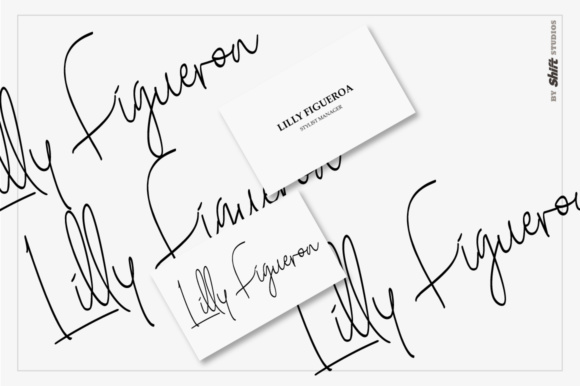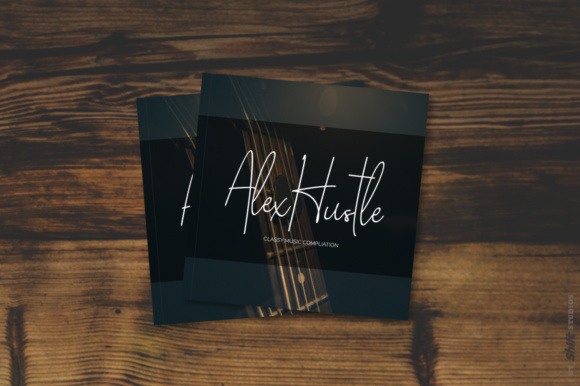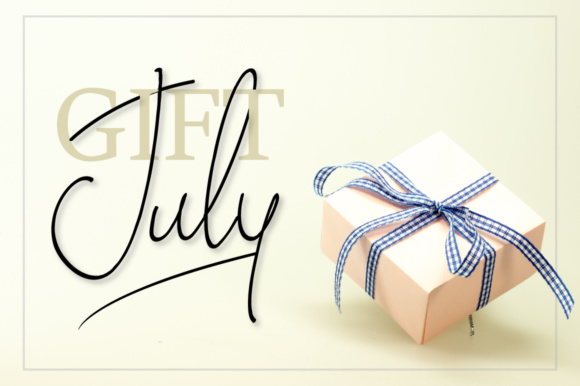
Introduction to Okamy Font
Remember that moment when you finally nailed the design for your favorite project, and everything just fell into place? It’s the perfect blend of creativity, experimentation, and a dash of luck. For designers, finding the right font can make all the difference between a good design and an exceptional one. And that’s exactly where the Okamy Font comes in – a game-changing signature font that’s about to become your new go-to companion for all your creative projects.
With its unique blend of relaxed and stylish vibes, the Okamy Font is the perfect addition to any design resource. Whether you’re working on a branding project, a digital campaign, or simply a personal creative project, this font is sure to bring a touch of sophistication and elegance to your work. And the best part? It’s available for a free download, making it an accessible and high-quality design resource for designers of all levels.
As a valuable addition to your design toolkit, the Okamy Font is all about giving you the creative freedom to experiment and push the boundaries of your designs. Its transparent background and sleek lines make it perfect for use on various design elements, from logos to social media graphics, and everything in between.
Key Features of Okamy Font
- Designed to be a unique and creative design resource, Okamy Font features a distinctive and modern aesthetic, perfect for adding a touch of elegance to any project.
- Perfect for use in various design projects, including logos, graphics, and digital art, thanks to its high-quality design and versatility.
Honest Review: Okamy Font
As a designer, I’m always on the lookout for high-quality design resources to elevate my creative projects. Recently, I stumbled upon the Okamy Font, and I’m excited to share my honest review.
- ✨ Beautiful, modern design aesthetic that’s perfect for creative projects
- ✨ High quality, clear typography that’s easy to read
- ✨ Versatile font that’s suitable for a wide range of design applications
- ⚠️ Limited character set, which may not be ideal for complex design projects
- ⚠️ No bold or italic styles, which can limit its use in certain contexts
Overall, the Okamy Font is a solid design resource that’s perfect for designers working on small-scale projects. While it has its limitations, its high quality and modern design aesthetic make it a great choice for creative projects. I’d definitely recommend it as a design resource, but be aware of its limitations before using it.
Common Use Cases for Okamy Font
Okamy Font is a popular design resource for creative projects, including logos, posters, and social media graphics. Its high-quality design and free download make it an ideal choice for designers looking for a stylish and versatile font.
Q: Can I customize the Okamy Font to fit my specific design needs?
While the Okamy Font is a high-quality design resource, it’s not designed to be heavily customized. However, you can use font editing software to make minor adjustments to the font’s style and layout. If you need more extensive customization, you may want to consider hiring a professional font designer or using a font